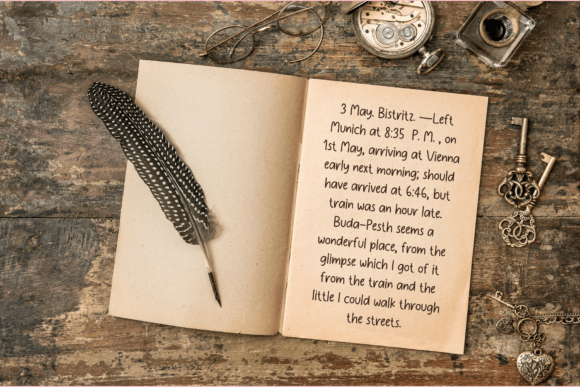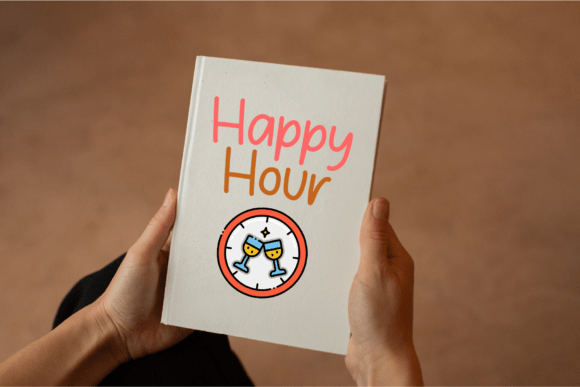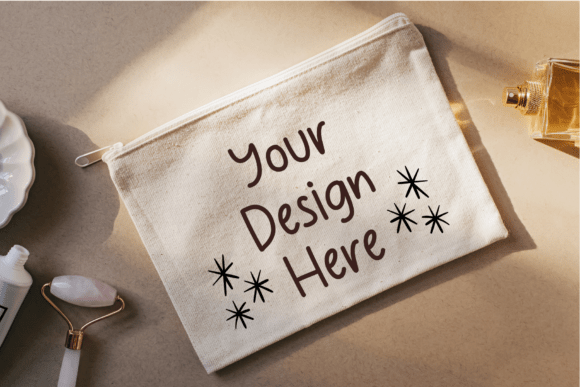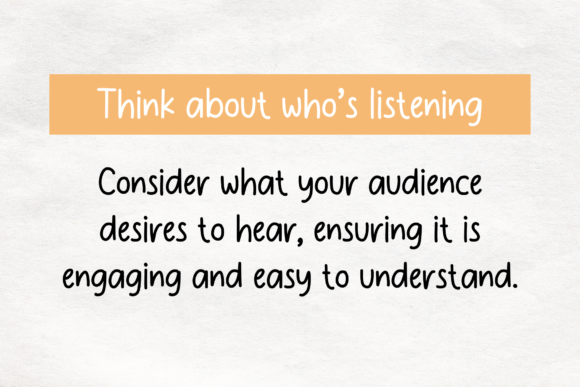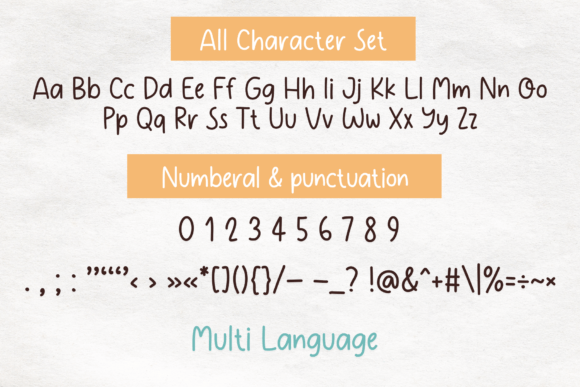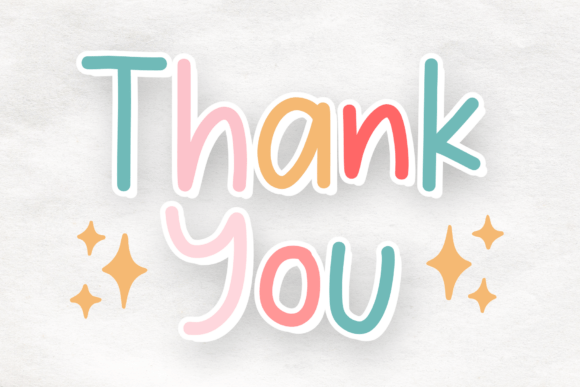
Dreamy Notes Font: The Perfect Handwritten Font for Your Creative Projects
Are you a designer, crafter, or DIY enthusiast looking for a font that embodies playfulness and authenticity? Look no further than the Dreamy Notes Font! This beautiful handwritten font is perfect for adding a personal touch to your favorite projects, from blog posts and logos to branding, ads, invitations, greeting cards, planners, photo albums, decorations, and more.
What is Dreamy Notes Font?
Dreamy Notes Font is a unique and charming handwritten font that is designed to bring a sense of whimsy and fun to your designs. Its playful and authentic feel makes it perfect for a wide range of creative projects, from digital designs to print materials. Whether you’re looking to add a personal touch to your blog posts, create a custom logo or branding for your business, or design beautiful invitations and greeting cards, Dreamy Notes Font is the perfect choice.
Key Features of Dreamy Notes Font
- Handwritten with love: Dreamy Notes Font is a carefully crafted handwritten font that is designed to look like it was written with love and care.
- Playful and authentic: This font embodies a sense of playfulness and authenticity that makes it perfect for a wide range of creative projects.
- Versatile: Dreamy Notes Font can be used for a variety of design projects, from digital designs to print materials.
Uses for Dreamy Notes Font
Dreamy Notes Font is a versatile font that can be used for a wide range of creative projects, including:
- Blog posts: Add a personal touch to your blog posts with Dreamy Notes Font.
- Logos and branding: Create a custom logo or branding for your business with this unique and charming font.
- Ads: Use Dreamy Notes Font to create eye-catching ads that stand out from the crowd.
- Invitations and greeting cards: Design beautiful invitations and greeting cards with this lovely handwritten font.
- Planners and photo albums: Add a personal touch to your planners and photo albums with Dreamy Notes Font.
- Decorations: Use this font to create beautiful decorations, such as wall art and signs.
Why Choose Dreamy Notes Font?
There are many reasons why you should choose Dreamy Notes Font for your creative projects. Here are just a few:
- Unique and charming: This font is a unique and charming handwritten font that will add a personal touch to your designs.
- Playful and authentic: Dreamy Notes Font embodies a sense of playfulness and authenticity that makes it perfect for a wide range of creative projects.
- Versatile: Dreamy Notes Font can be used for a variety of design projects, from digital designs to print materials.
Tips for Using Dreamy Notes Font
Here are a few tips for using Dreamy Notes Font in your creative projects:
- Experiment with different colors: Try out different colors and color combinations to find the perfect look for your design.
- Mix and match with other fonts: Dreamy Notes Font looks great when paired with other fonts. Try mixing and matching to create a unique look.
- Use it for headings and titles: This font is perfect for headings and titles, but it can also be used for body text.
- Don’t be afraid to get creative: Dreamy Notes Font is a versatile font that can be used in a wide range of creative projects. Don’t be afraid to think outside the box and try new things!